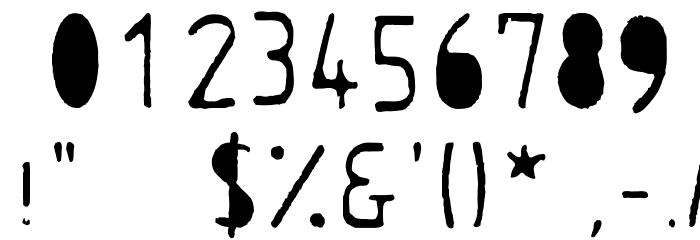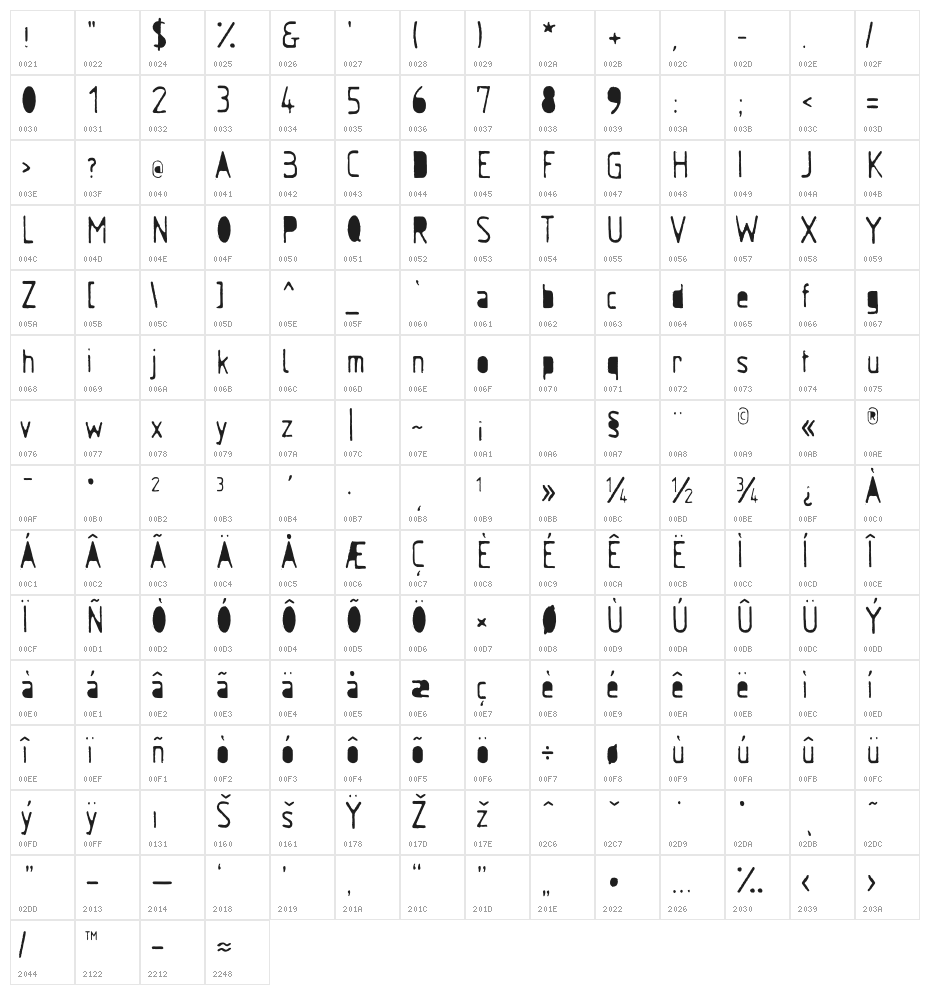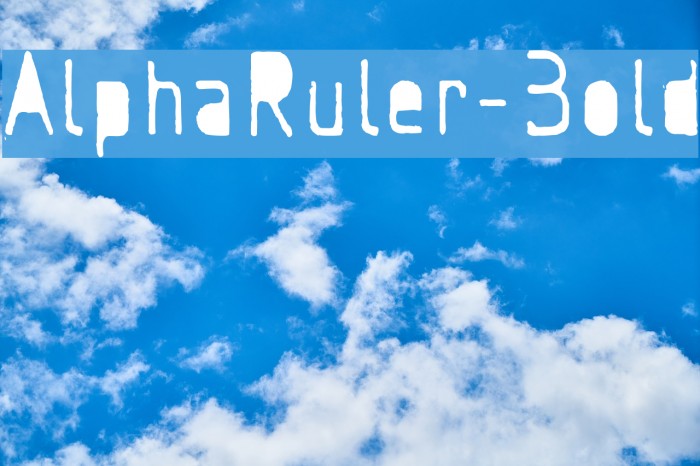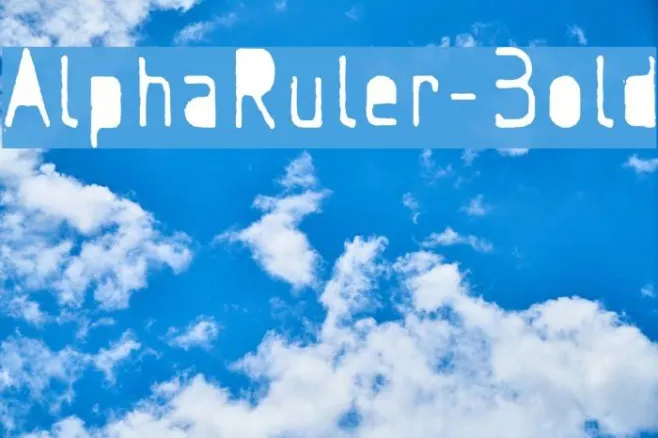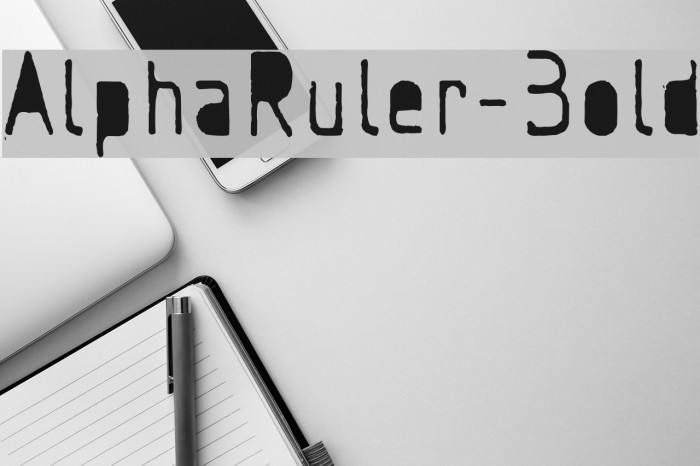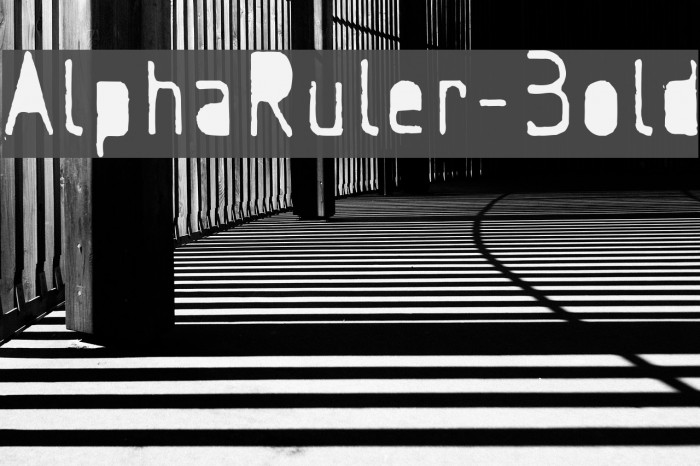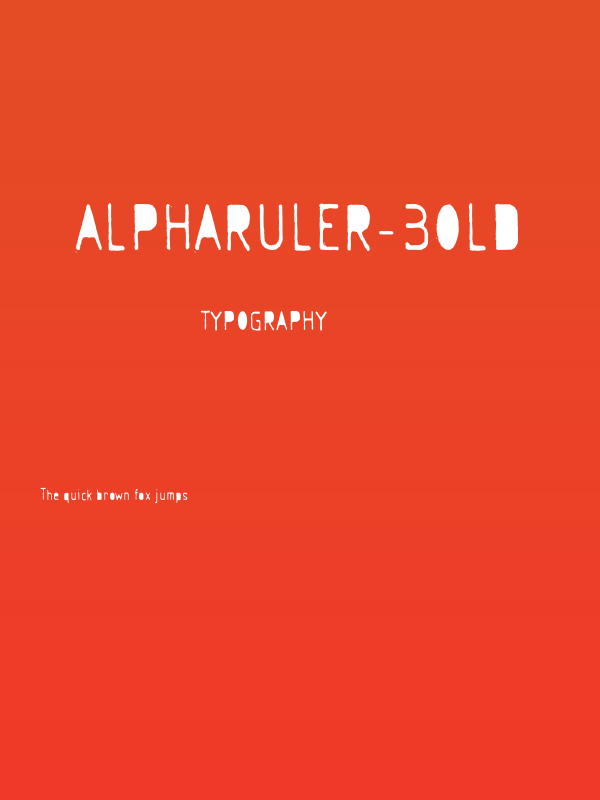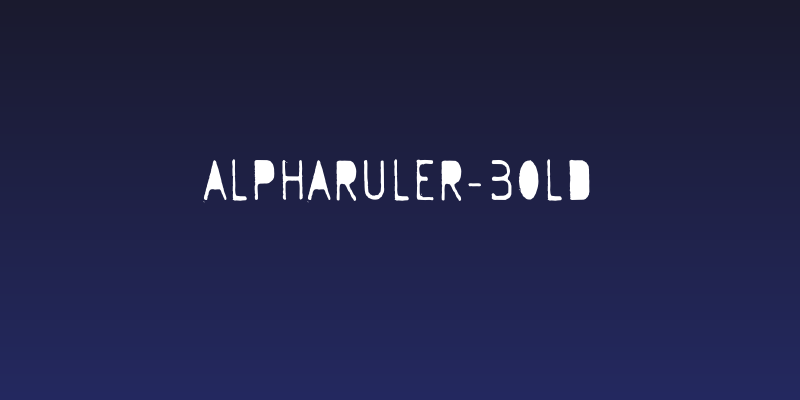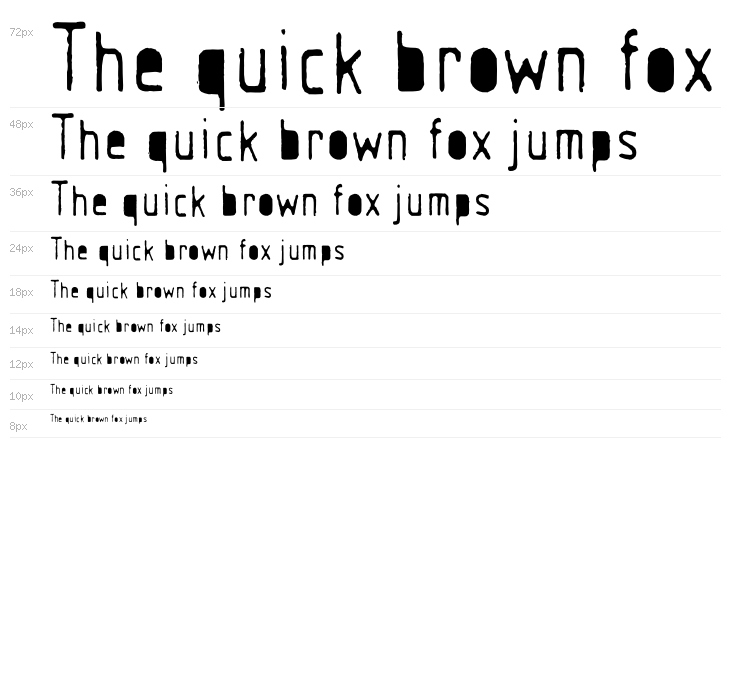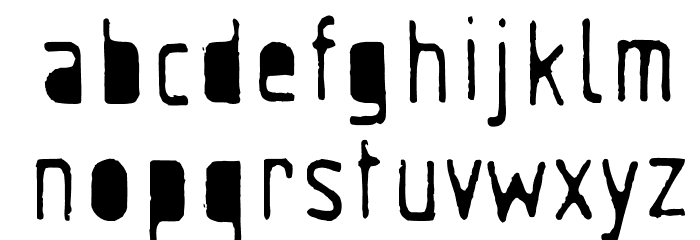
AlphaRuler-Bold Font
AlphaRuler-Bold Description
This font features a bold and rugged style with a hand-drawn appearance. The characters are unevenly weighted, giving it a raw and organic feel. The uppercase letters are tall and narrow, while the lowercase letters maintain a consistent height, creating a harmonious balance. The numbers and special characters follow the same aesthetic, with some characters having a slightly distressed look. This font is suitable for projects that require a rustic or vintage touch, adding character and uniqueness to any design.
| Proposed Projects | Ideal for vintage posters, rustic branding, handmade product packaging, and artistic book covers. |